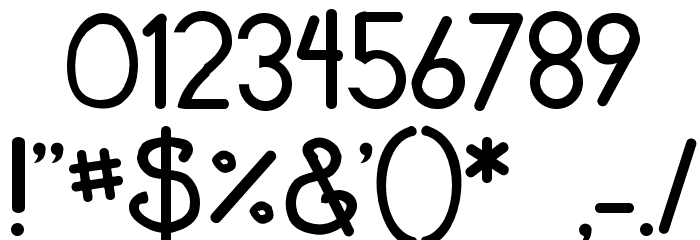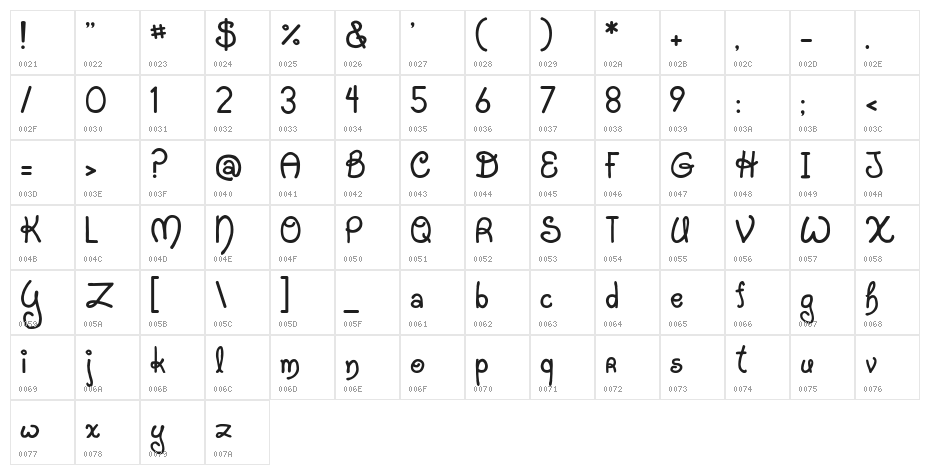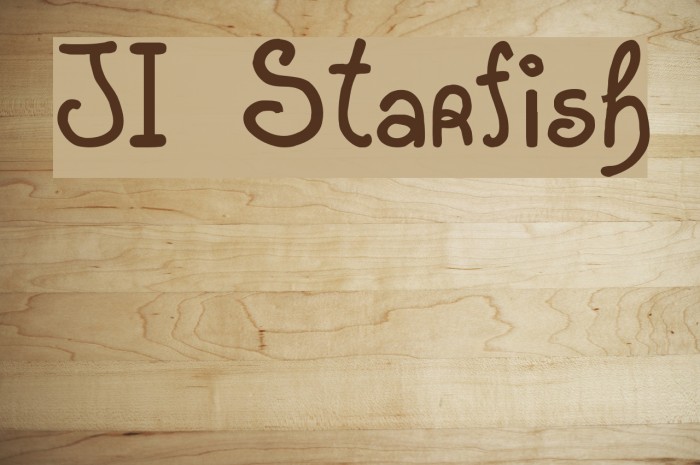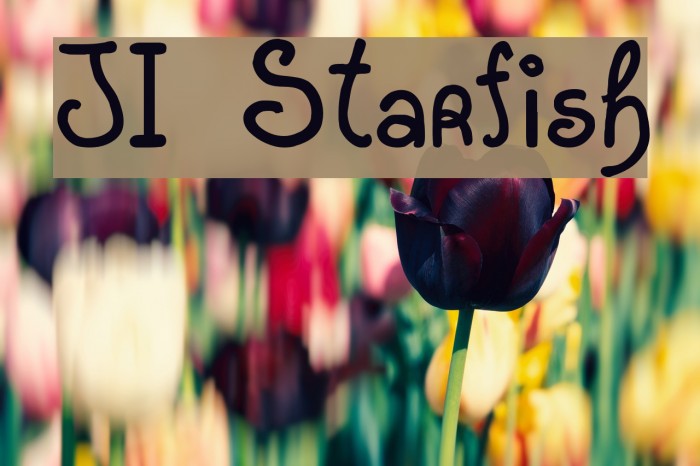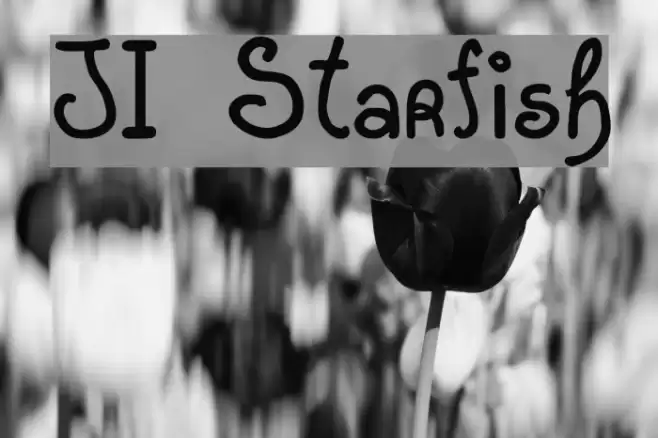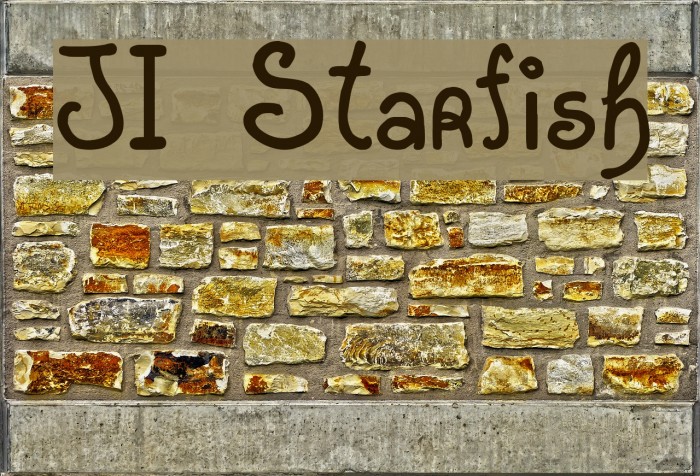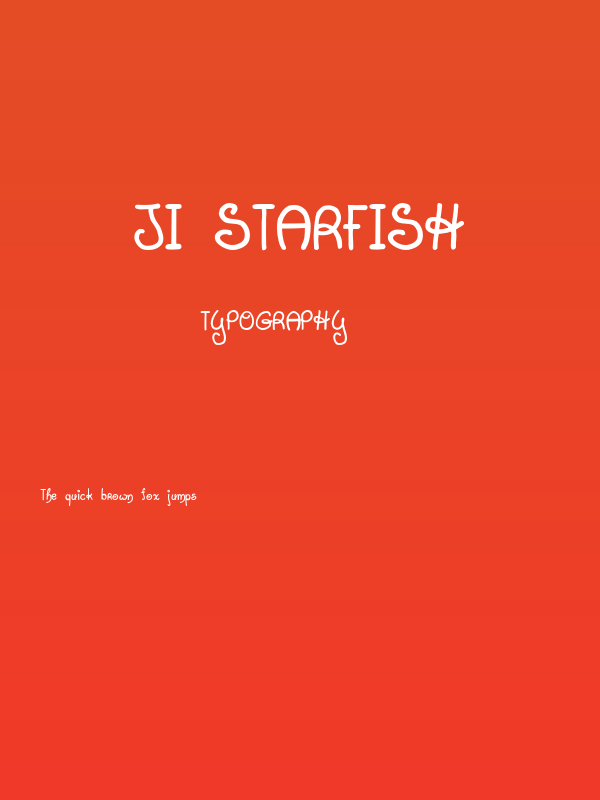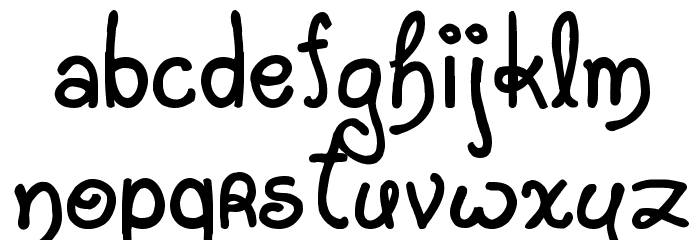
JI Starfish Font
JI Starfish Description
This playful and whimsical font features a handwritten style with a casual and friendly appearance. The letters exhibit a consistent stroke width, giving it a uniform look while maintaining a sense of spontaneity. The characters are rounded and slightly irregular, adding to the charm and informal feel of the typeface. The uppercase and lowercase letters are distinct yet harmonize well together, and the numerals are clear and easy to read. Special characters are creatively designed, complementing the overall style. This font is ideal for projects that require a personal touch or a fun, approachable aesthetic.
| Use Case | Headlines, Logos, Informal text |
| Proposed Projects | Great for children's books, greeting cards, playful branding, or informal event invitations. |